Travel typography is designed to evoke movement, freedom, and a sense of discovery while remaining clear and highly readable across digital and physical touchpoints. Here, I want to show the most common and widely accepted fonts in the travel industry to help you build your brand.
Thyne font for elegant travel brands
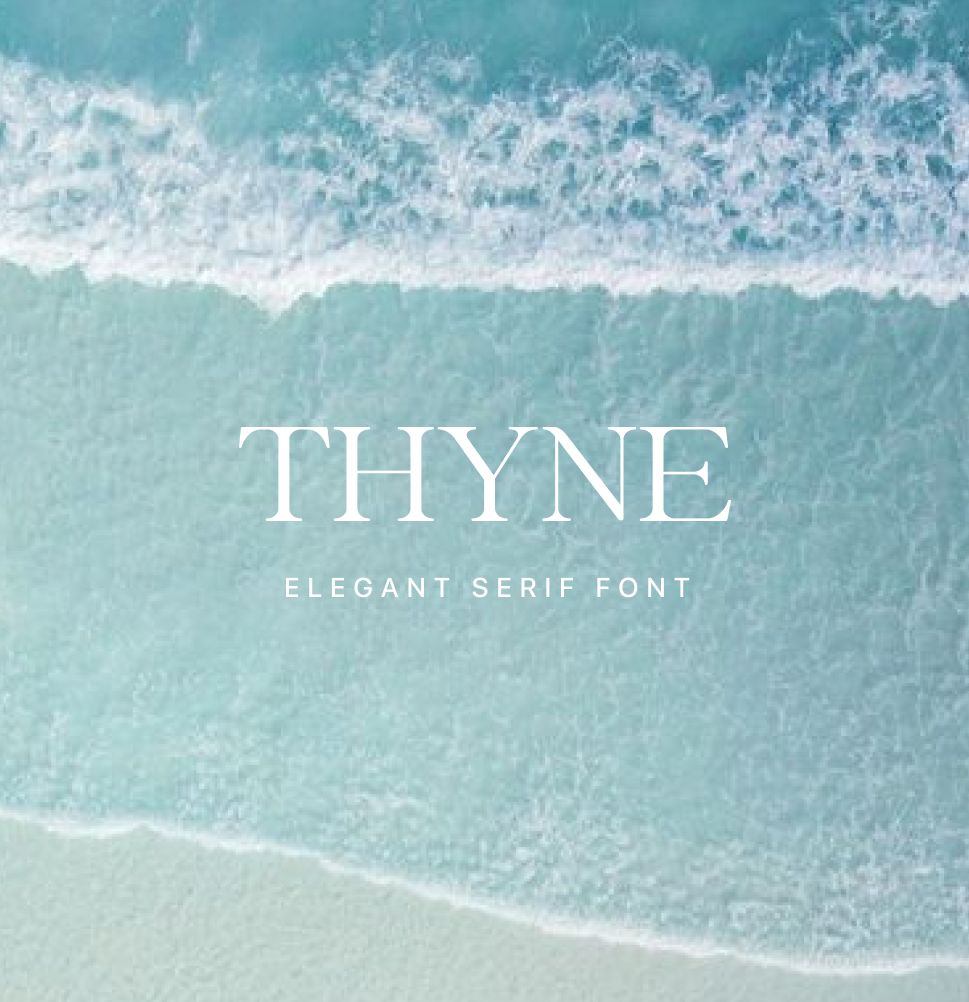
A refined serif aesthetic with soft contrast and airy spacing. The best fit for brands that feel elegant and calm, perfectly paired with light ocean tones to evoke a sense of openness, escape, and quiet luxury.
Audrey Font for airy travel brands
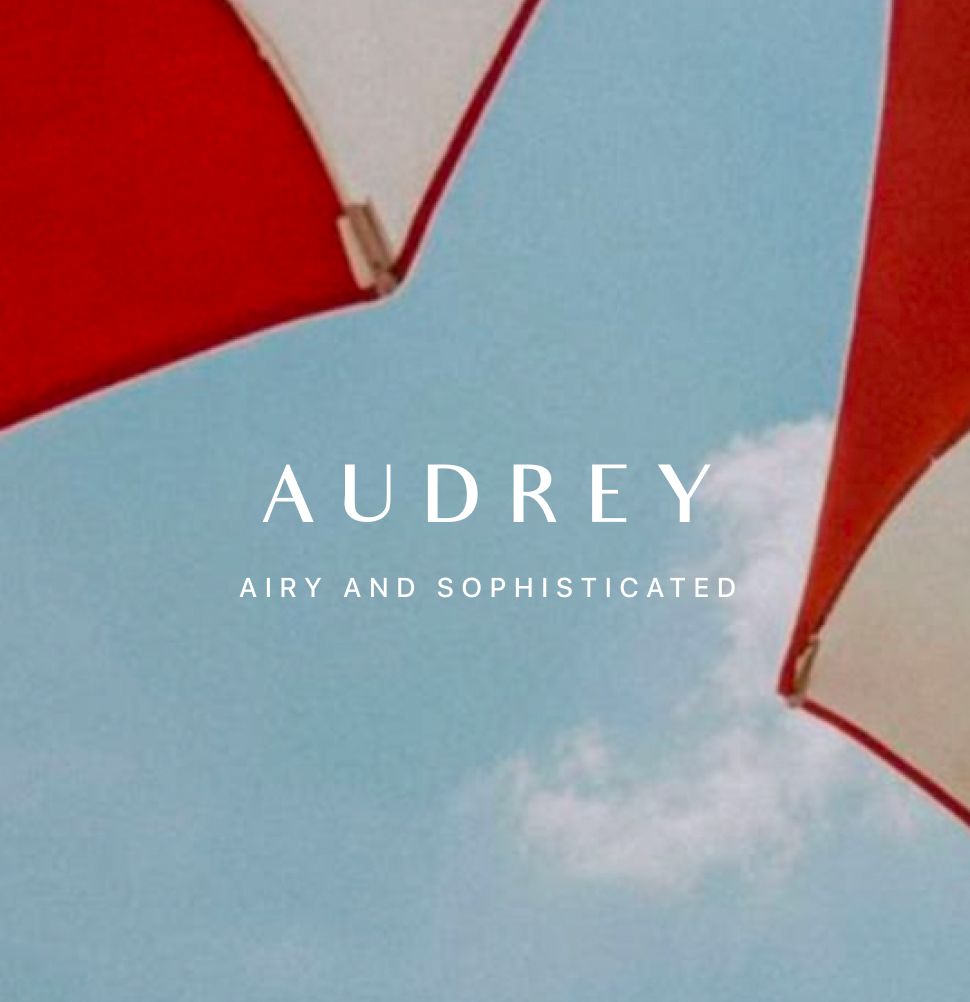
A minimal, airy sans-serif aesthetic with wide spacing and soft composition. The typography feels light and effortless, evoking a sense of open skies, freedom, and quiet escape.
Classico font for chic travel brands
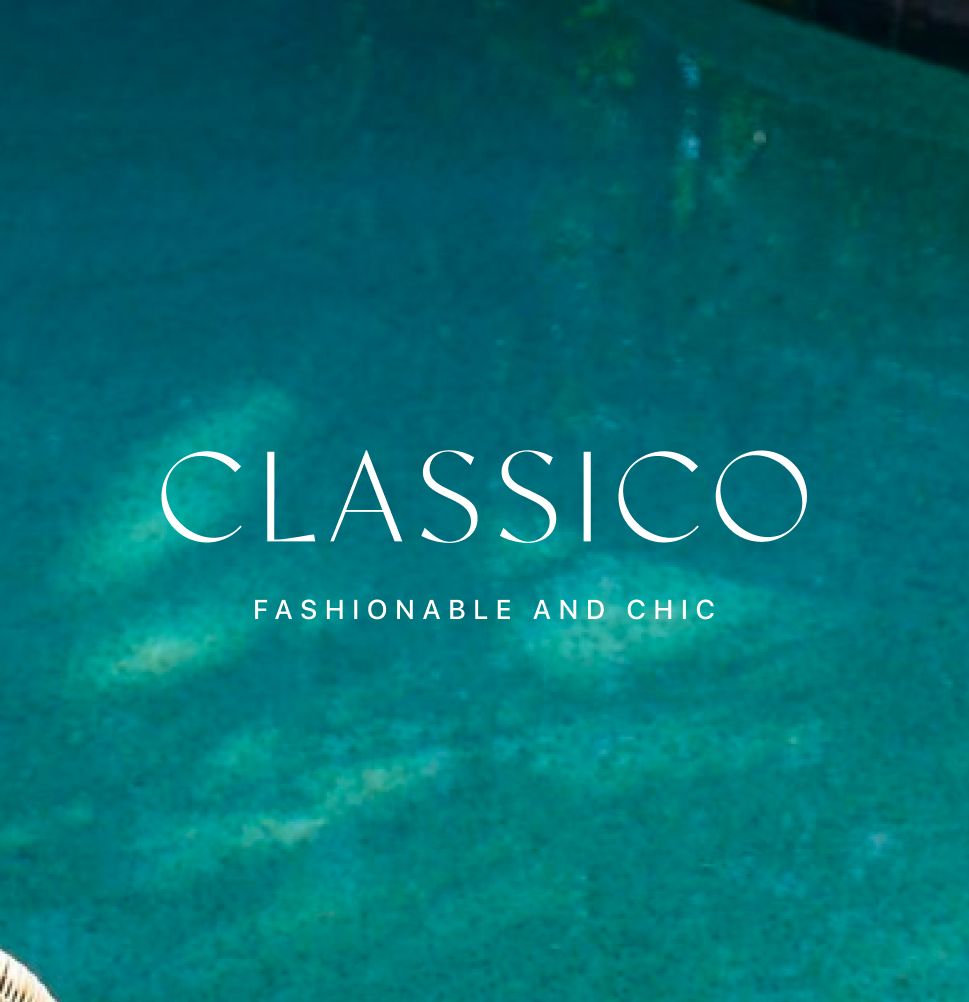
A refined, lightweight serif with generous spacing, set against deep ocean tones. For brands that feels calm yet immersive, evoking a sense of depth, relaxation, and slow, intentional travel.
Madegra font for timeless travel brands
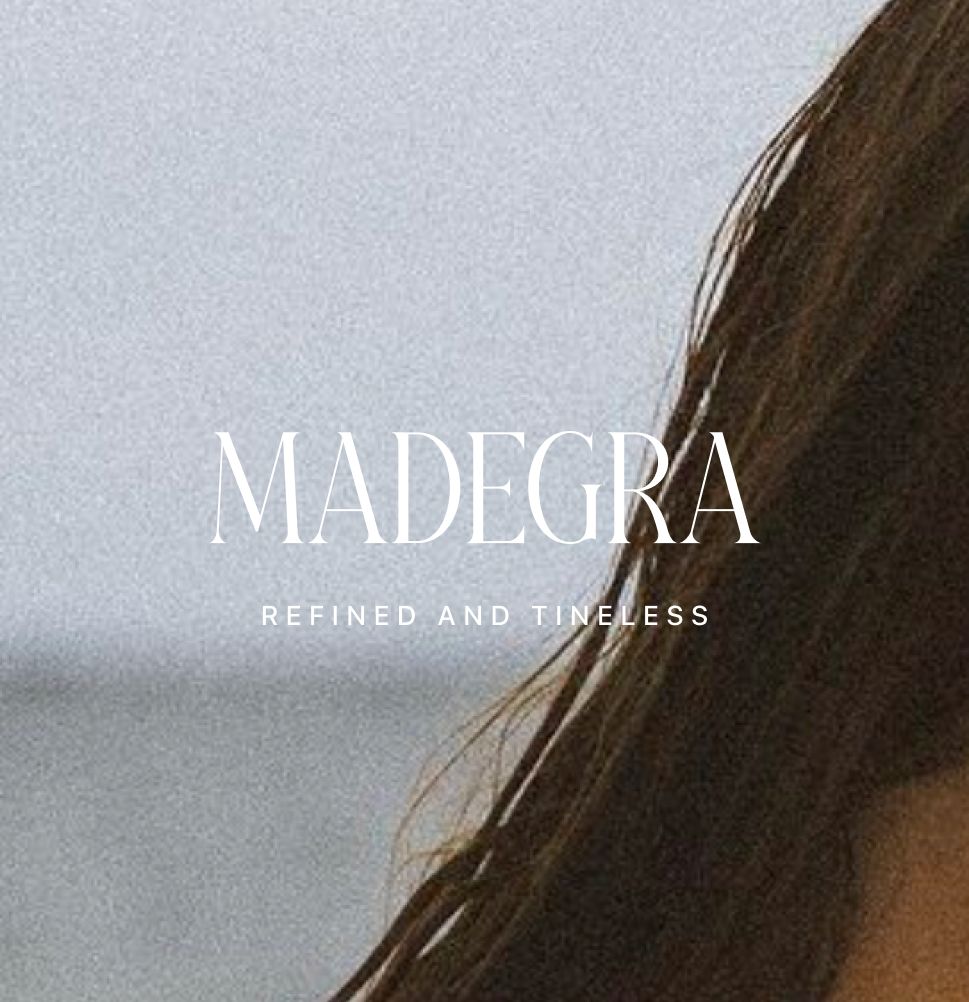
A refined, high-contrast serif paired with warm, natural tones. Your brand could feel intimate and grounded, evoking a sense of personal journey, quiet confidence, and timeless elegance.
Latte VF for boho travel brands
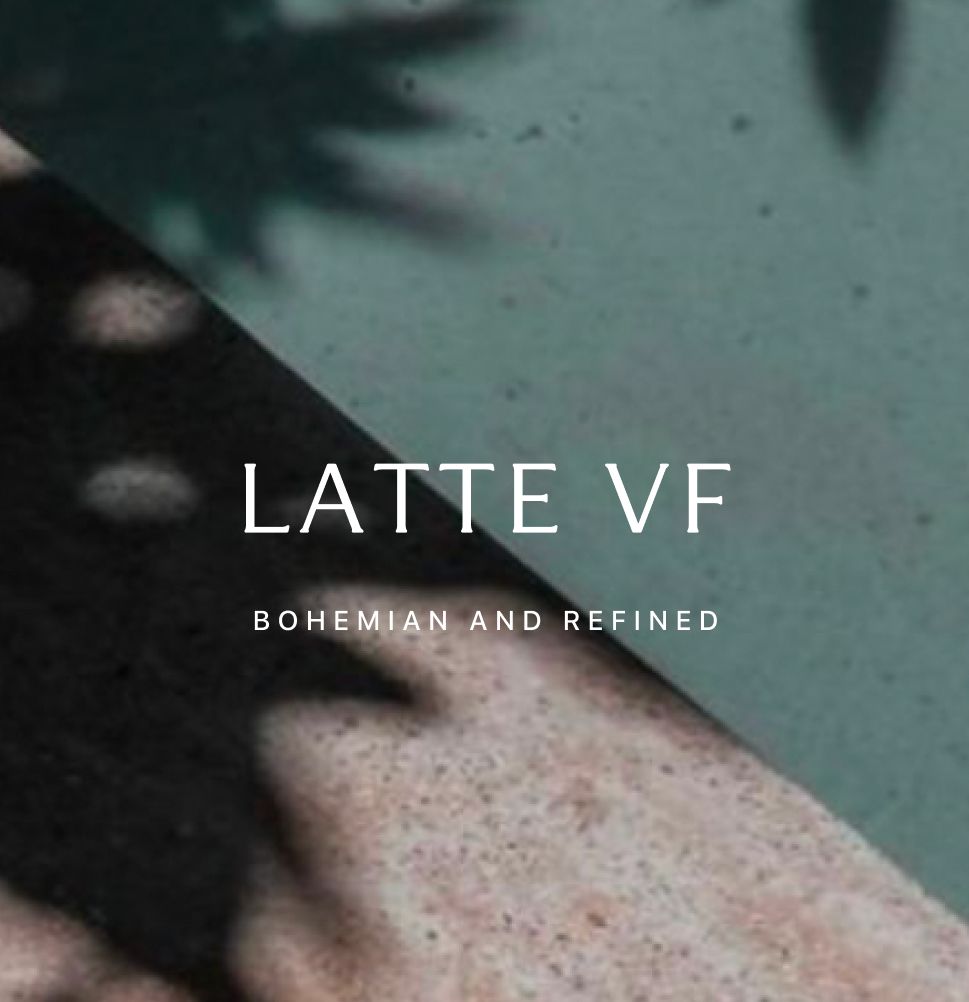
A refined serif aesthetic with soft contrast and structured spacing. The composition feels calm and tactile, evoking a sense of quiet confidence and grounded elegance — great for boutique travel brands, wellness retreats, and design-led hospitality.